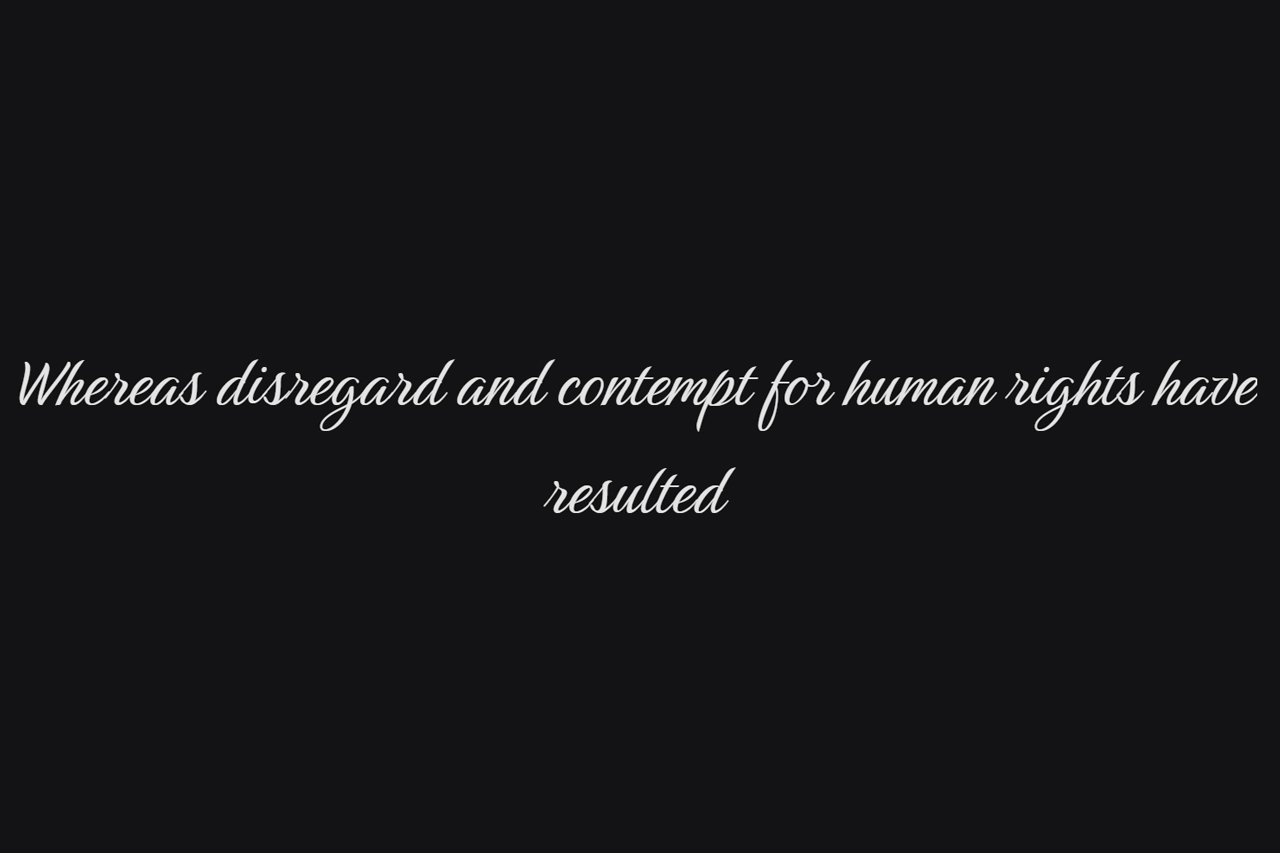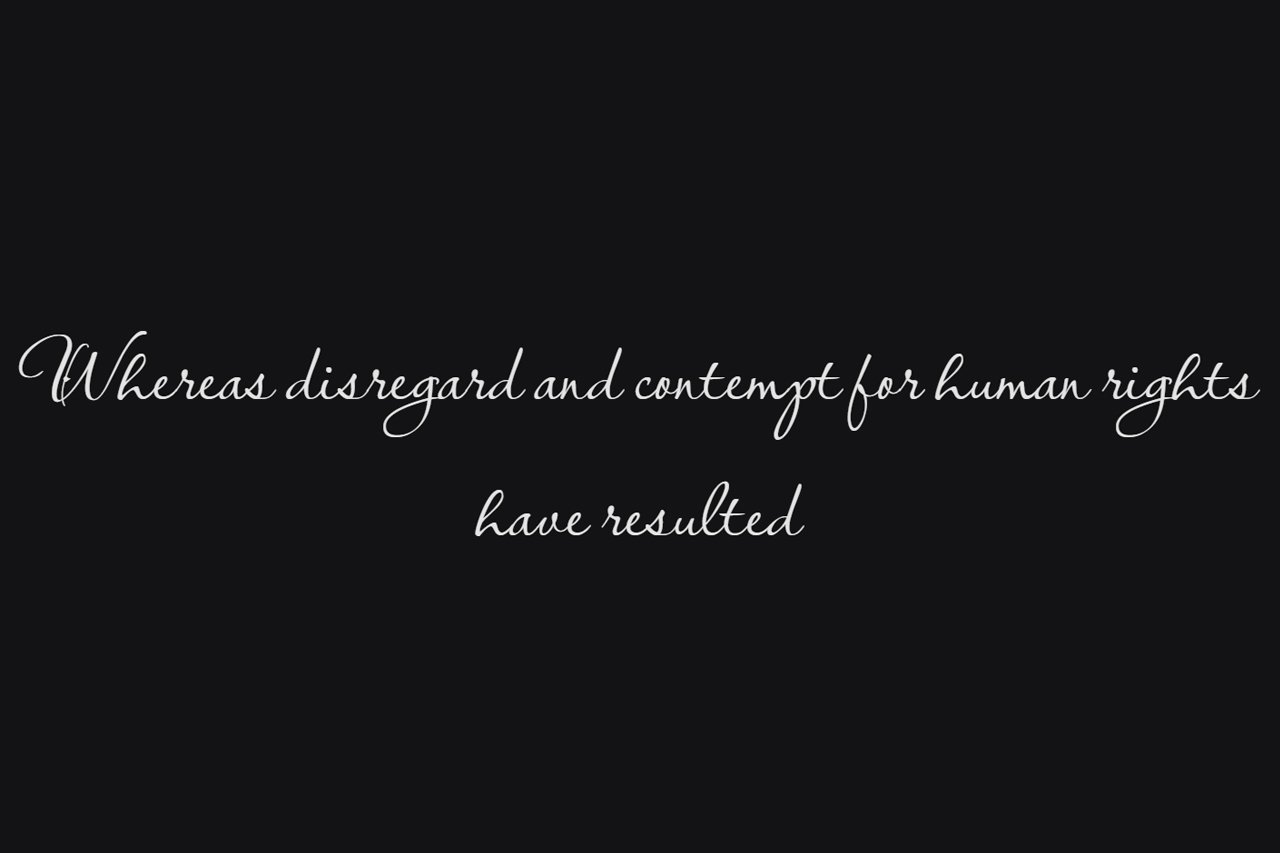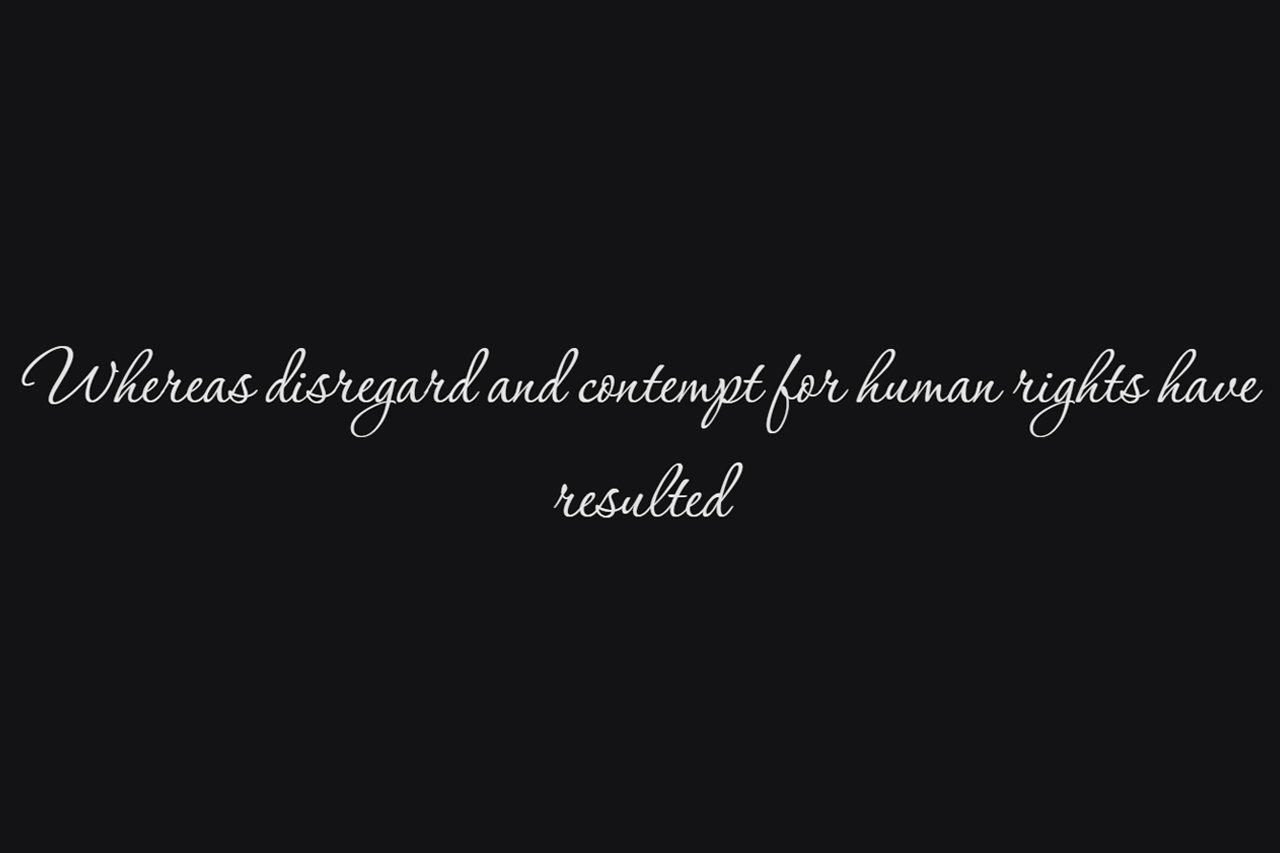
Choosing the right font can make a wedding invitation feel truly special. Free wedding fonts are a great option when you want an elegant design without spending money on a premium typeface. They can add romance, style, and personality to invitations, menus, place cards, and wedding signs.
Google Fonts offers many typefaces that can work well for wedding projects. Some have flowing script letters, while others have a softer handwritten feel. Because every wedding has its own style, the best font will depend on the mood you want to create.
In this guide, we will look at eight beautiful options: Monsieur La Doulaise, Imperial Script, Mea Culpa, Ballet, Fleur De Leah, Birthstone, Lavishly Yours, and Corinthia.
Another benefit is variety. You can find script, serif, sans serif, and display styles in the collection. As a result, you can create many different wedding looks without needing several paid fonts.
Consistency also matters. Once you choose your favorite free wedding fonts, you can use them across your invitation, menu, place cards, and signs. This gives your wedding stationery a more connected appearance.
1. Monsieur La Doulaise
Monsieur La Doulaise has a classic and elegant appearance. Its flowing letters give it a formal calligraphy style. Because of this, it can work beautifully for traditional wedding invitations.
The font is especially effective when used for names. It can also work well for short titles and decorative phrases.
However, its detailed letterforms are not ideal for large blocks of text. Instead, use it for the most important words on your invitation.
Best Uses for Monsieur La Doulaise
- Couple names
- Wedding titles
- Monograms
- Invitation covers
- Welcome signs
For a balanced design, pair it with a simple serif font. This keeps smaller information easy to read.
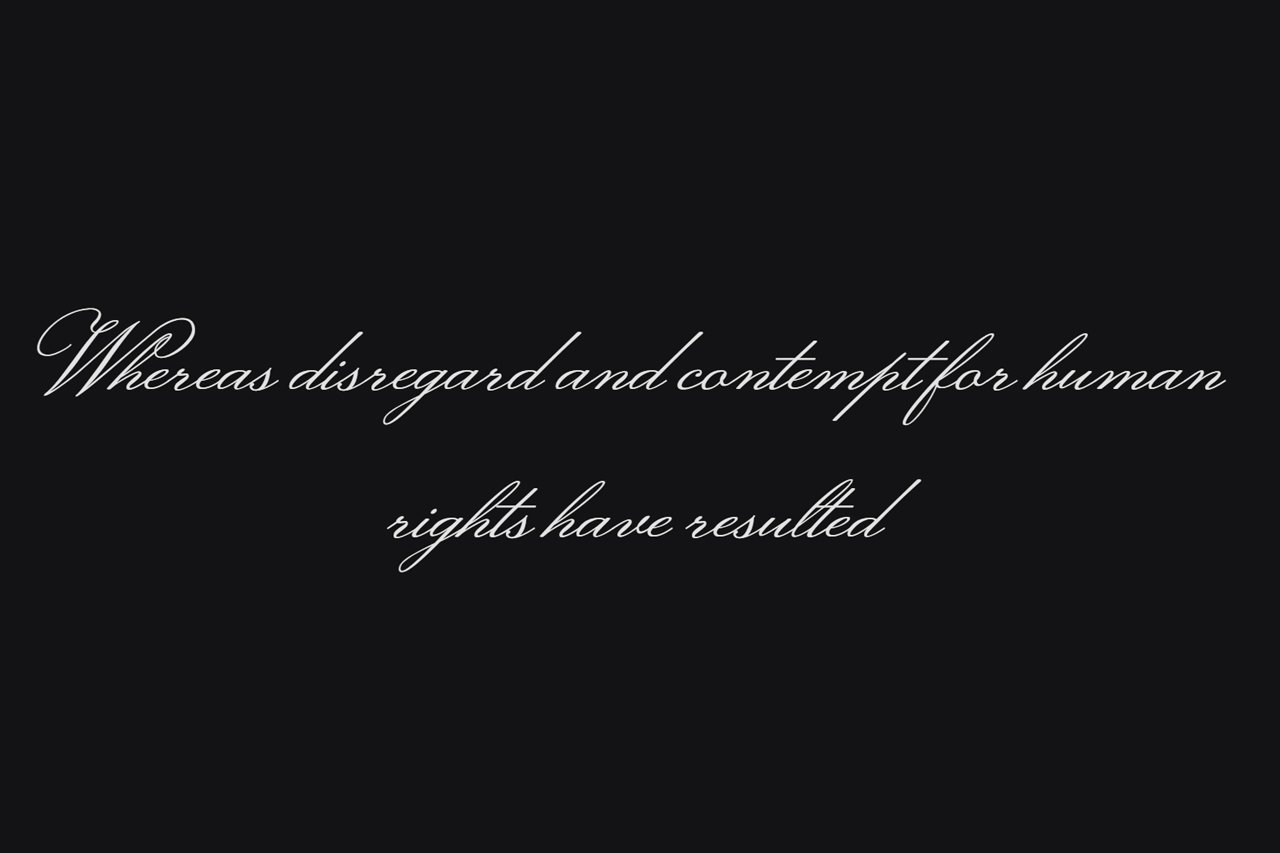
2. Imperial Script
Imperial Script is another beautiful choice for romantic wedding designs. Its flowing strokes give the font a graceful appearance. As a result, it can make a simple invitation feel more elegant.
This font works especially well when the couple’s names are the main focus. You can also use it for save-the-date cards and wedding menus.
Best Uses for Imperial Script
- Wedding invitations
- Save-the-date cards
- Menu headings
- Thank-you cards
- Couple names
For smaller text, use a clean serif or sans serif font. This creates a clear difference between decorative and practical information.
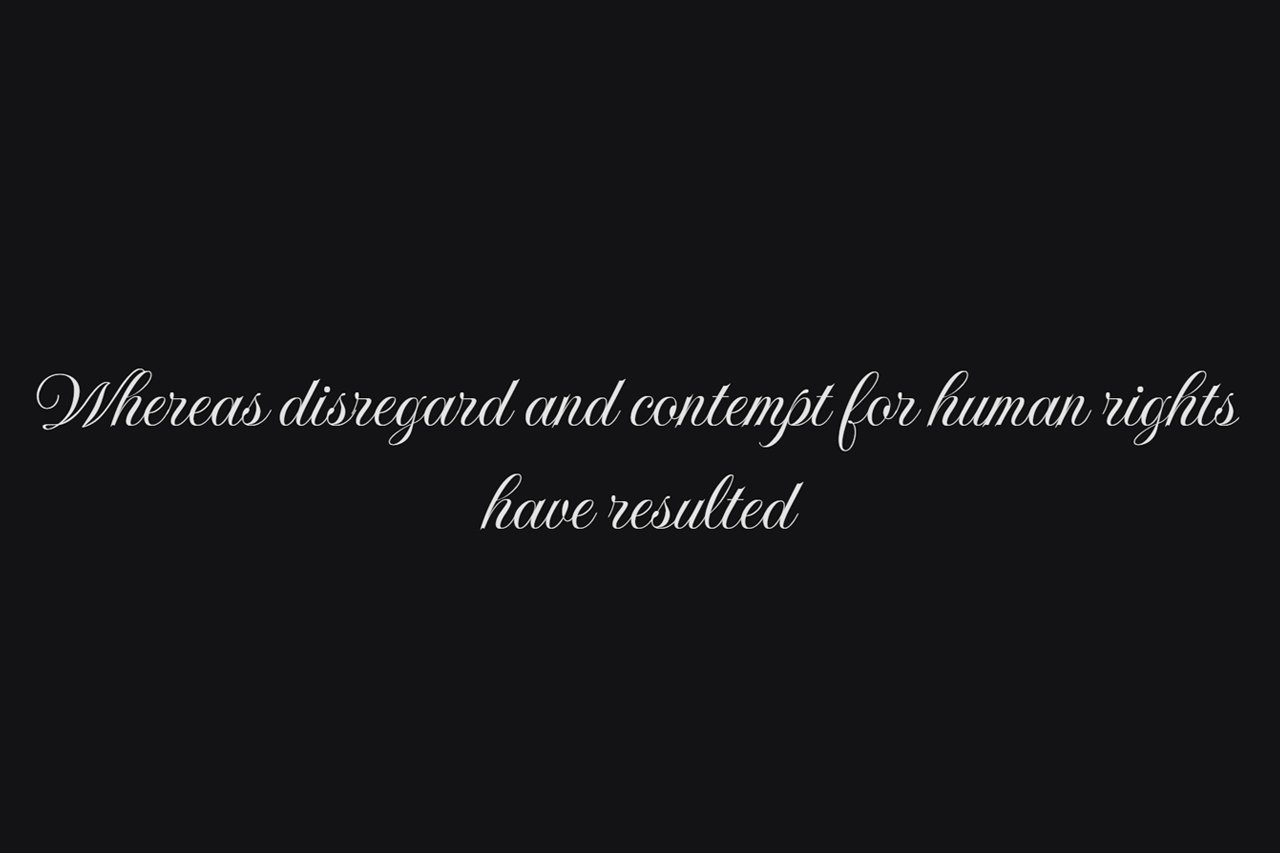
3. Mea Culpa
Mea Culpa has a formal and artistic look. Its decorative capitals make it stand out from simpler script fonts. Therefore, it is a strong choice for elegant wedding invitations.
The font can give your design a classic feeling. It may work especially well for formal ceremonies and traditional wedding themes.
At the same time, avoid using it for every word. The decorative details can make long text harder to read.
Best Uses for Mea Culpa
- Formal invitations
- Wedding monograms
- Couple initials
- Wedding programs
- Decorative headings
Try using Mea Culpa for the names. Then, use a simple font for the date, venue, and RSVP details.
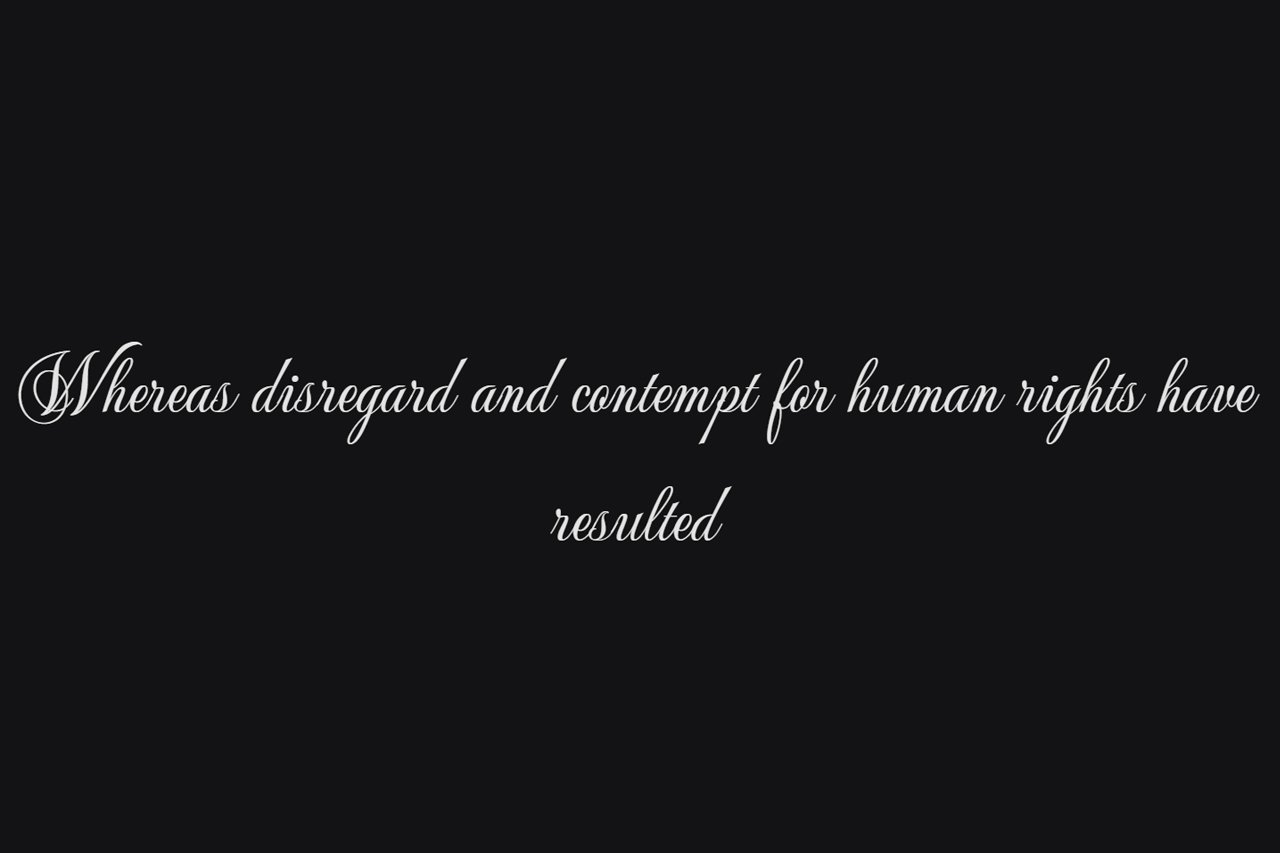
4. Ballet
Ballet has a soft and graceful appearance. Its delicate letterforms can give wedding stationery a romantic feeling.
For example, you can use Ballet with floral illustrations, light colors, or a simple layout. It can also work well for garden weddings and bridal events.
However, thin lettering needs enough space and contrast. Therefore, test the font before printing your final design.
Best Uses for Ballet
- Romantic invitations
- Bridal shower cards
- Wedding menus
- Place cards
- Floral stationery
For the best result, keep the layout simple. Let the font become one of the main decorative elements.
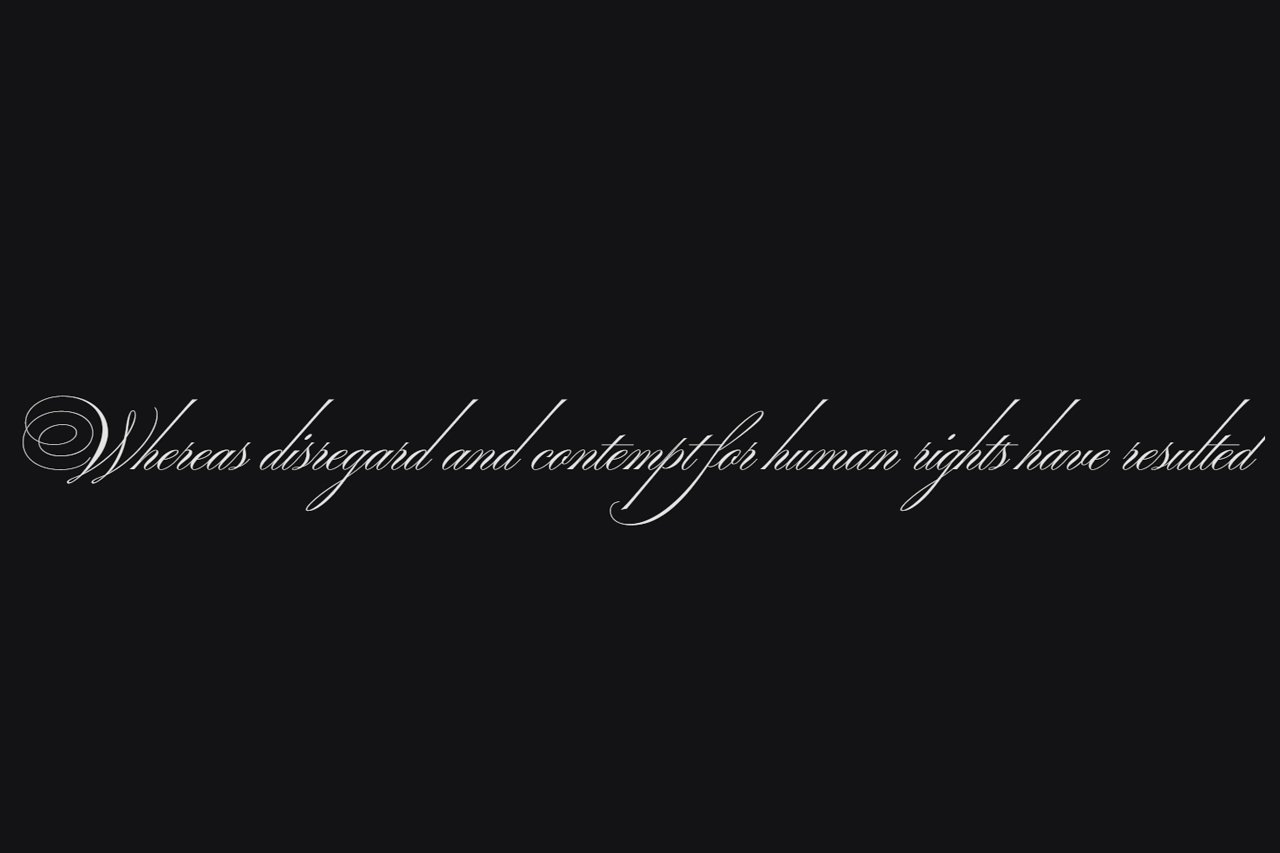
5. Fleur De Leah
Fleur De Leah has a more personal and relaxed style. It can make wedding stationery feel warm and handmade.
Because of this, it is a great choice for outdoor weddings, garden ceremonies, and floral themes. It can also work well for couples who want something less formal.
Use Fleur De Leah for names or short phrases. Then, pair it with a readable font for the remaining information.
Best Uses for Fleur De Leah
- Garden wedding invitations
- Floral stationery
- Welcome signs
- Wedding quotes
- Couple names
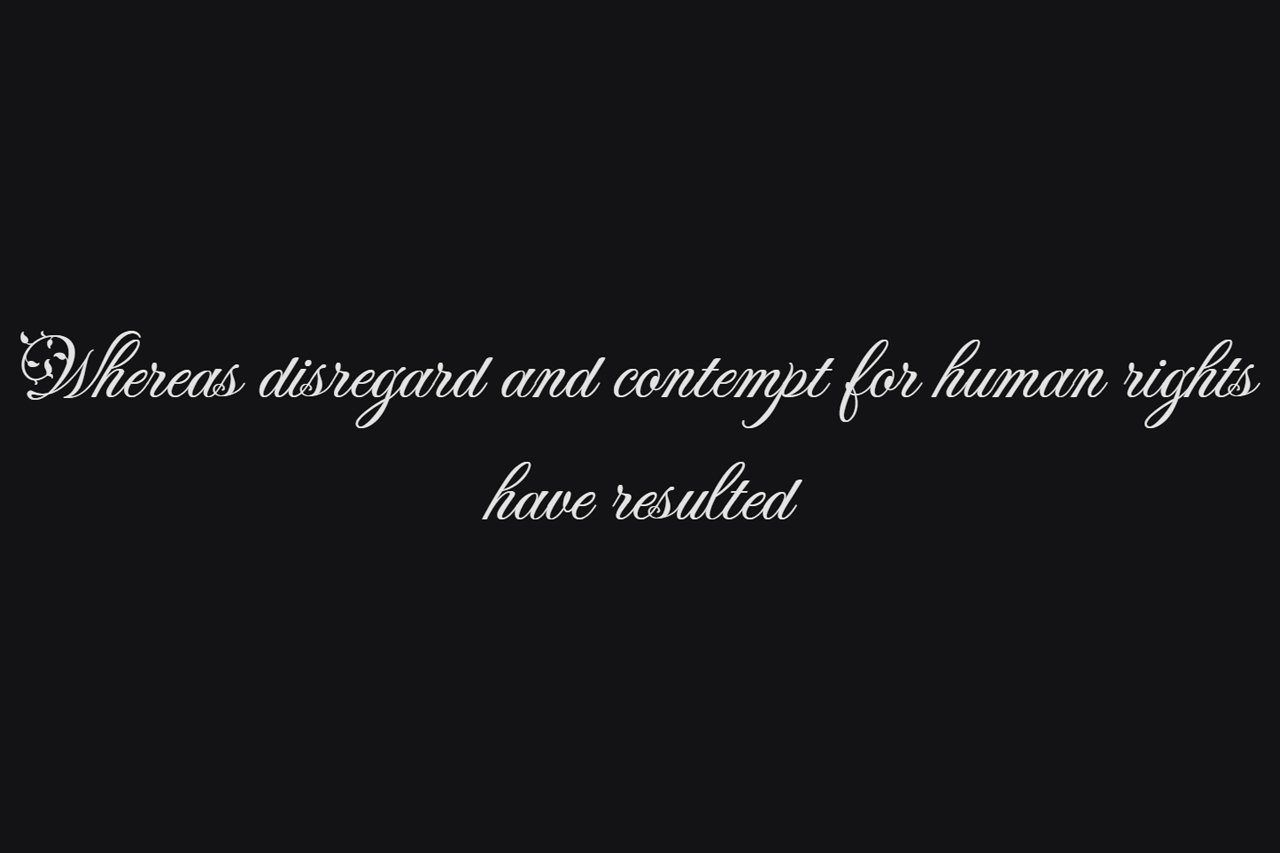
This combination creates a nice balance. The script adds personality, while the simpler font keeps the information clear.
Birthstone and Corinthia can work well for modern designs. In addition, Lavishly Yours is a strong option for elegant wedding branding.
The best choice depends on your wedding style and design needs. So, test a few fonts before making your final decision.
Most importantly, keep your typography simple and readable. Use decorative fonts for names and headings. Then, pair them with a clean font for important details.
With the right combination, your wedding invitation can feel elegant, personal, and memorable.